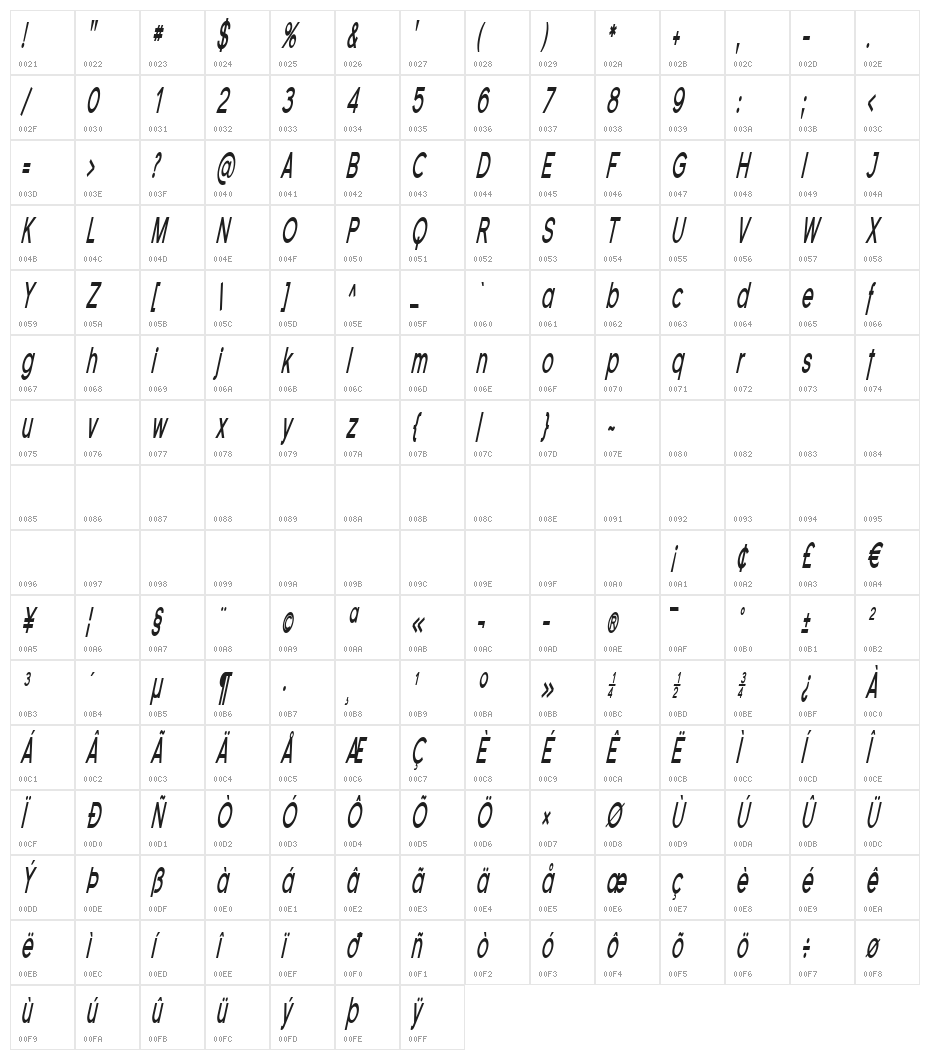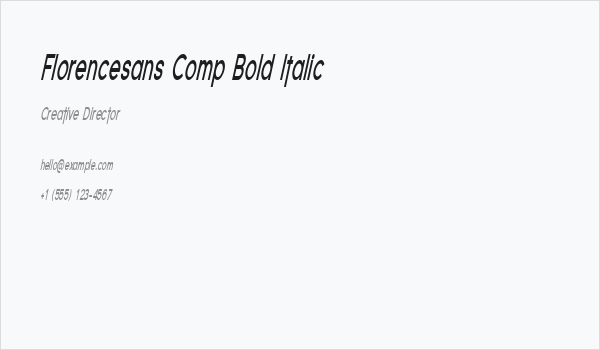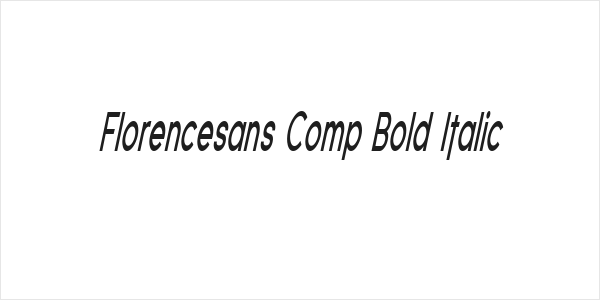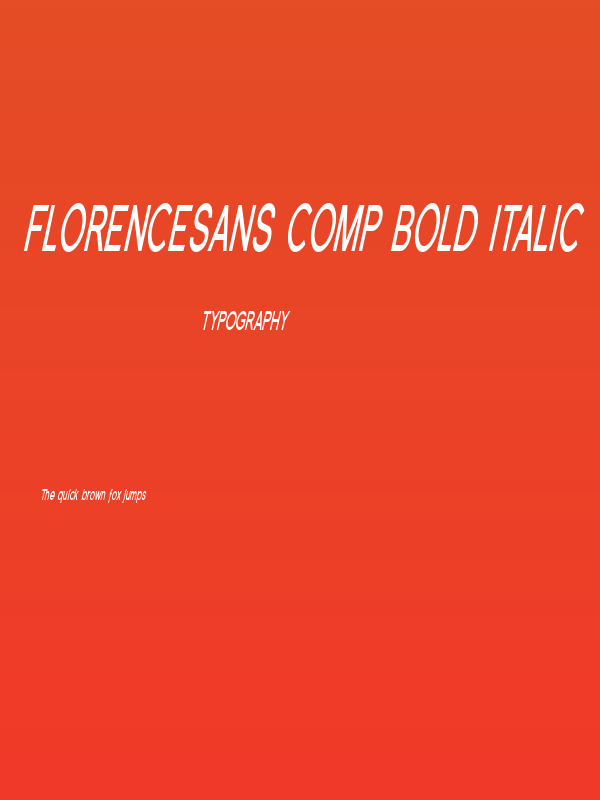
Florencesans Comp Bold Italic Font
Florencesans Comp Bold Italic Description
This font features a bold and italicized style with a modern sans-serif design. The characters are slightly condensed, giving a sleek and streamlined appearance. The strokes are consistent in weight, providing a uniform look across all characters. The italic slant adds a dynamic and forward-moving feel, making it suitable for contemporary and energetic designs. The spacing between characters is tight, which enhances the compact and efficient use of space. This font is versatile, suitable for both digital and print media, and can be used to create a strong visual impact.
| Use Case | Headlines, Logos, Advertising |
| Proposed Projects | Ideal for branding, advertising, headlines, and modern web design projects. |